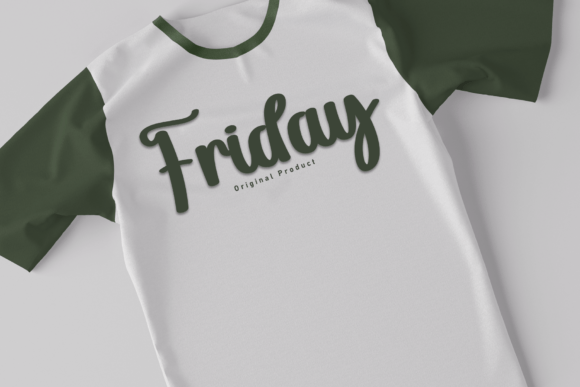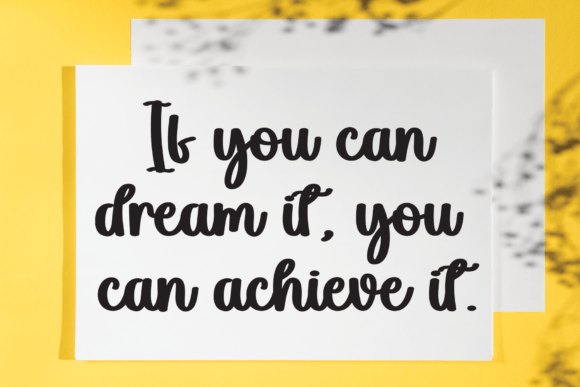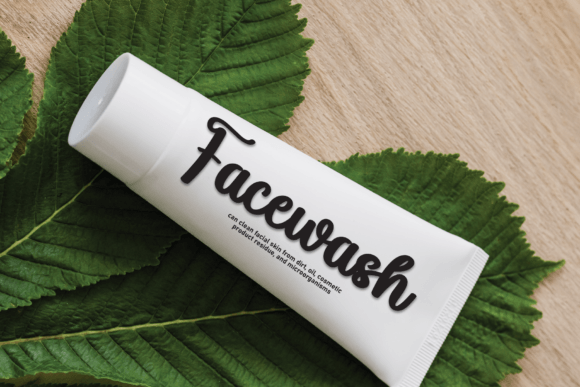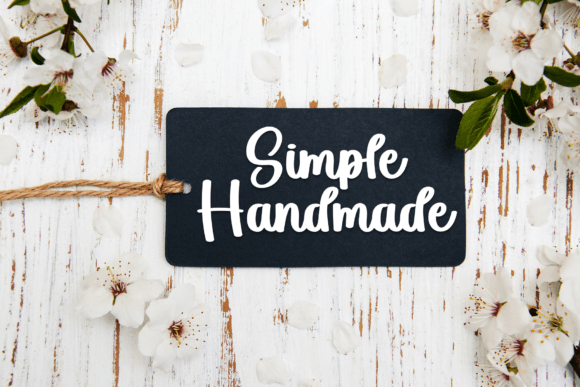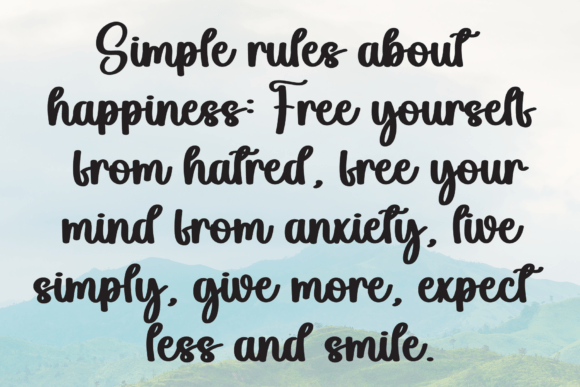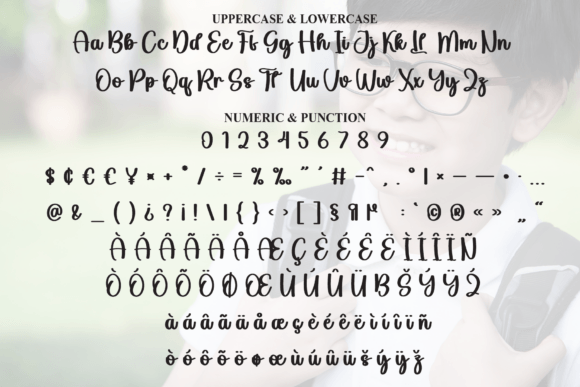
Unlocking the Whimsy of Boy School Font
Have you ever stumbled upon a font that instantly puts a smile on your face and sparks a wave of creative ideas? For designers, this moment is like finding a treasure trove of inspiration. It happened to me when I discovered Boy School Font – a charming, handwritten typeface that exudes warmth and friendliness. This delightful font is more than just a pretty face; it’s a perfect blend of playful and elegant, making it an ideal choice for creating memorable designs.
Whether you’re designing a wedding invitation, crafting a birthday card, or working on a design project that needs a dash of whimsy, Boy School Font is the perfect addition to your toolkit. Its unique charm and sophistication make it a valuable asset for designers who crave that perfect balance between fun and elegance. With Boy School Font, you can infuse your designs with a joyful touch that will leave a lasting impression on your audience.
Boy School Font Key Features
- Font Family: Boy School Font is a display font designed to evoke a sense of fun and playfulness.
- Character Set: Supports a wide range of characters, including uppercase and lowercase letters, numbers, and punctuation marks.
- Unique Characteristics: Boy School Font features a bold and playful style, with exaggerated letterforms and a distinctive character set that adds a touch of whimsy to any design.
Boy School Font Review
Overall, I think the Boy School Font has some nice qualities, but it’s not perfect. ✨ Here are some things that work well:
- It’s playful and fun, making it perfect for projects that need a bit of whimsy.
- The font is highly customizable, with a wide range of weights and styles to choose from.
- The character set is comprehensive, with a good selection of symbols and punctuation marks.
However, there are also some limitations to consider: ⚠️
- The font may be a bit too bold for some applications, making it difficult to read in certain contexts.
- The italics can be a bit wonky, with some letters not lining up properly.
- The font doesn’t include any ligatures, which can make it look a bit clunky in certain situations.
Overall, I think the Boy School Font is a solid choice for projects that need a fun and playful touch. It’s not perfect, but it’s a great option for designers who want to add a bit of personality to their work.
Use Boy School Font for bold, playful, and youthful designs, such as school projects, children’s party invitations, and kids’ products. Experiment with different font sizes and colors to create visually appealing designs. You can also pair the font with other playful fonts or graphics to create a fun and energetic look.
Boy School Font is ideal for:
- School projects and presentations
- Children’s party invitations and decorations
- Kids’ products and merchandise
- Playful marketing materials and social media graphics
Alternatives to Boy School Font
Great Vibes is a fun, cursive font perfect for adding a playful touch to your designs. It’s great for use in branding, advertising, and packaging where you want to convey a sense of youthfulness and energy.
Compared to Boy School Font, Great Vibes has a more relaxed and carefree feel. While Boy School Font has a more structured, vintage look, Great Vibes is more free-flowing and expressive.
Carter One Font
Carter One is a modern, sans-serif font ideal for use in digital products, apps, and websites. It’s great for applications where you need a clean, simple font that’s easy to read.
Compared to Boy School Font, Carter One has a more minimalist and contemporary feel. While Boy School Font is more nostalgic and retro-inspired, Carter One is sleek and futuristic.
For optimal readability, we recommend using font sizes between 12 and 24 points, depending on the context and intended audience. A line spacing of 1.2 to 1.5 times the font size is also recommended to ensure clear and comfortable reading.